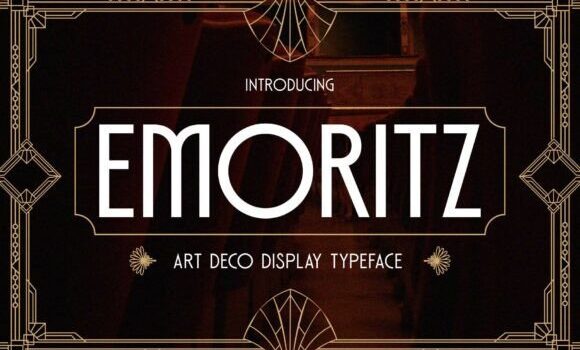
emoritz
Emoritz Font – Free Download Introduction to Emoritz Font Emoritz is a display font, inspired by the Art Deco style from the 1920s. 📸 Preview Gallery 6 images 📌 Product Name Emoritz Font 👤 Author Arterfak Project 📂 Category Explore